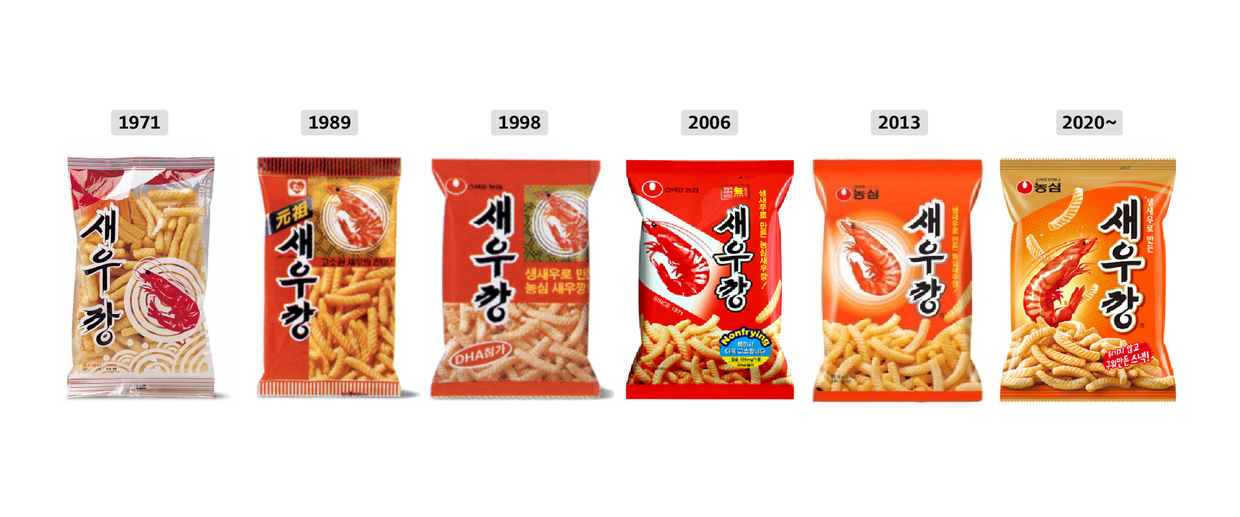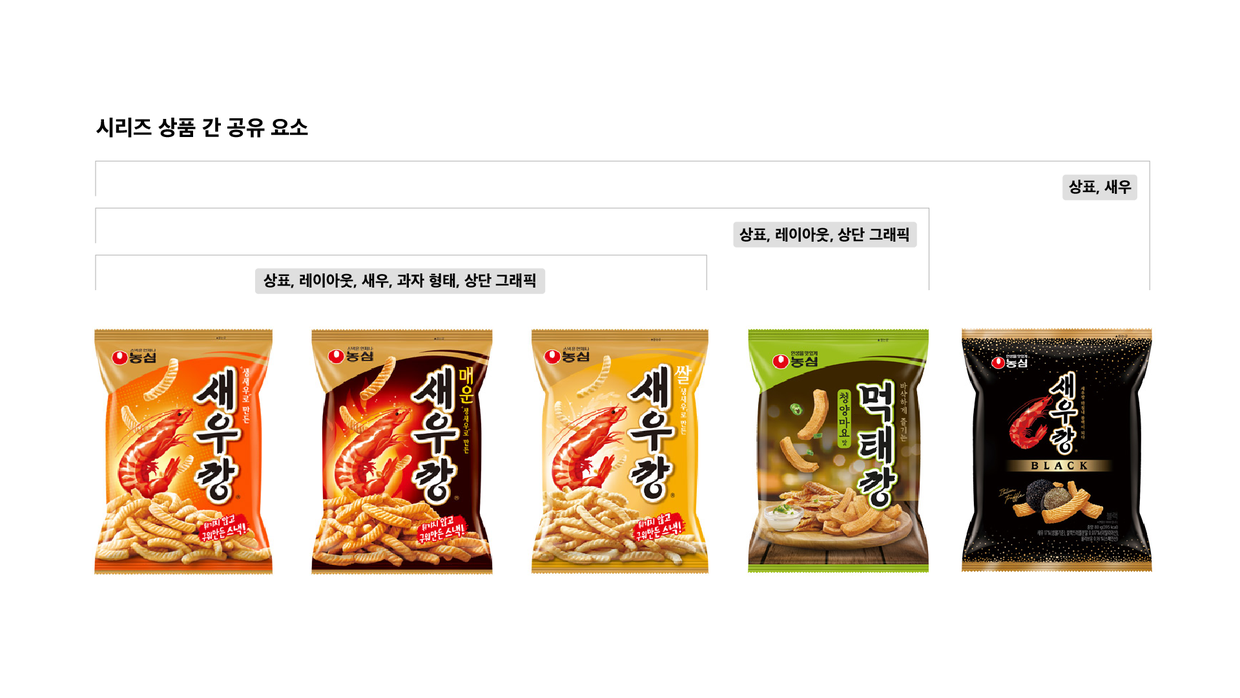
A Snack Package Observation Log
If you are a designer, this will probably resonate with you. Do you not often find yourself closely examining design in related fields wherever you go? Font designers look at shop signs on the street, UX designers analyze app structures while browsing shopping malls, and interior designers instinctively check ceiling finishes in cafés. I am particularly interested in printed materials, so I tend to study package design closely. Today, I would like to share some interesting points I observed in snack packaging.
Observation Point 1: It looks delicious at a glance
Snacks that have been on the market for a long time are already familiar to us, so they can be easily recognized at a glance by their colors or specific shapes. New products, however, require customers to read the text first in order to understand what they are. In this sense, lettering plays a crucial role in snack packaging. With this in mind, I looked through convenience store shelves and noticed products that captured their characteristics well through lettering. Let me briefly list a few examples.
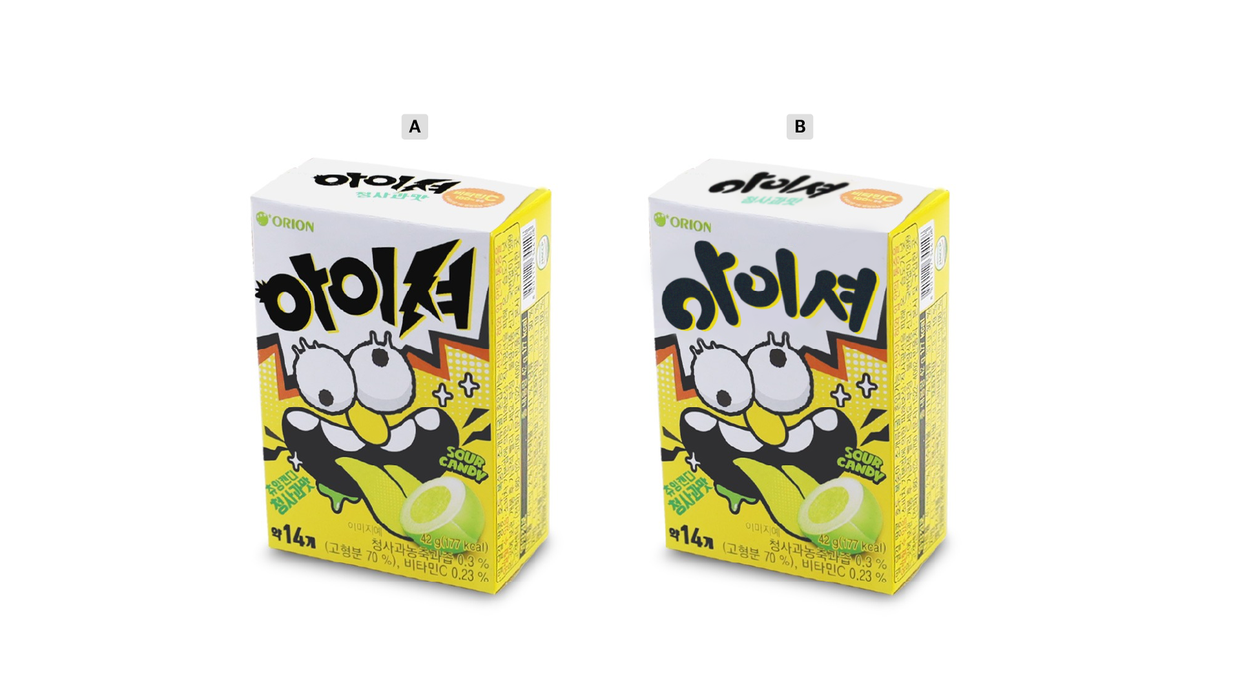
Taste
First is a case of visualizing taste. The lightning-bolt shape and the spiky, bristling form seem to express the sharp sourness of Aisher. A is the original Aisher package, and B is a package that applies the trademark style of MyGummy as a reference. What do you think? Which design, A or B, makes your mouth water more?
Form
Take a close look at the trademark of Kobuk Chip. Which one do you think is the real Kobuk Chip among A, B, and C? 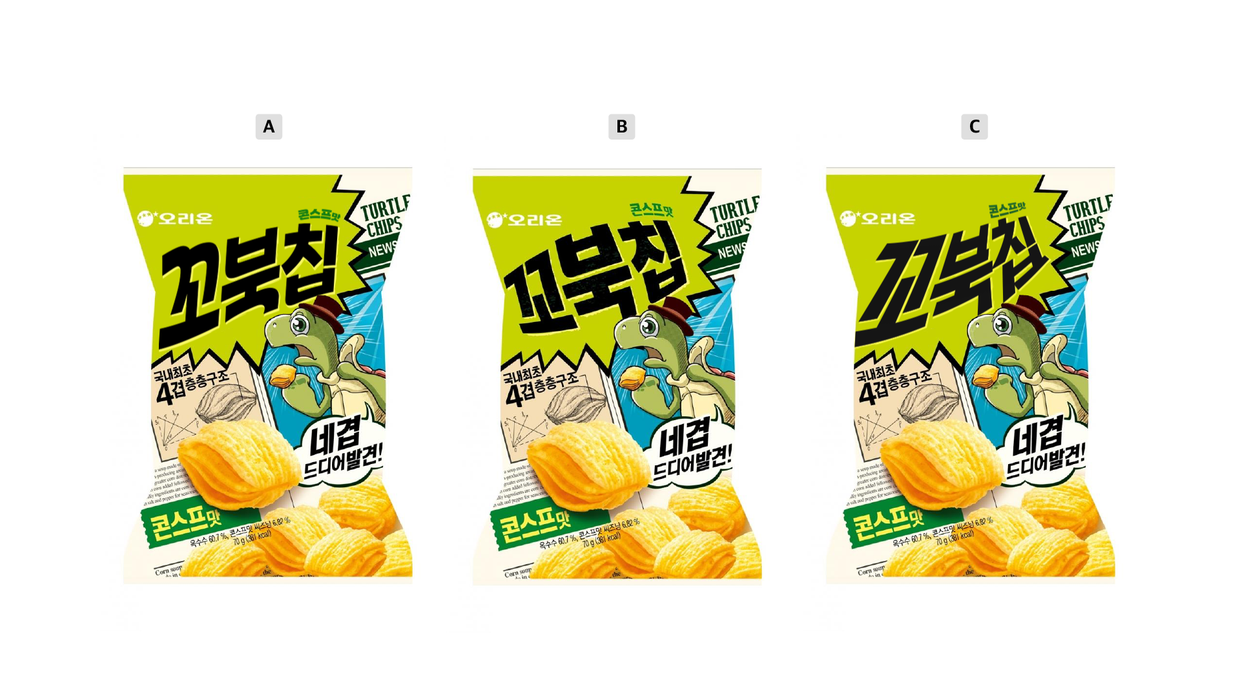
The correct answer is B. It is an answer that can be inferred from the shape of the snack itself. This is a case that reflects the product’s physical characteristics by applying the thick, puffed shape of the chip to the trademark. Kobuk Chip is said to be shaped after a turtle’s shell. Combined with the turtle-shell-shaped snack, the turtle character, and lettering that incorporates these features, the product’s characteristics are well expressed.
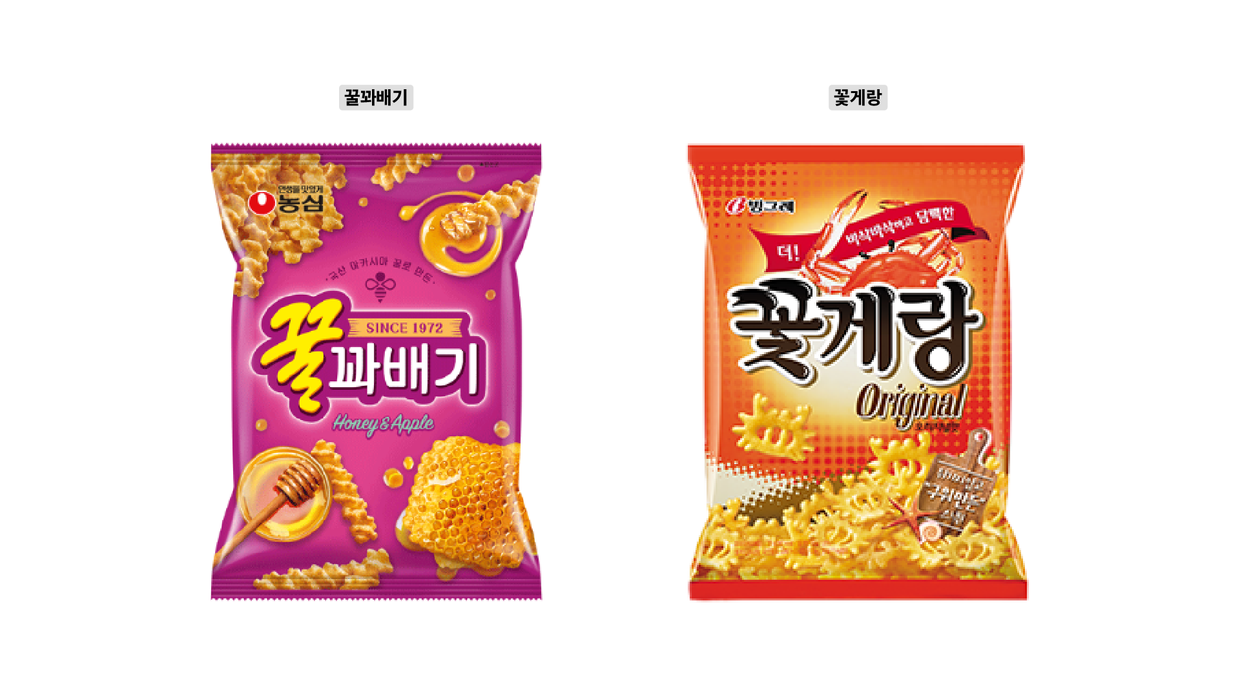
Ingredient
Lastly, this is a case where the main ingredient of the snack is expressed through the trademark lettering. In Honey Twists, the flowing property of honey is reflected in the final consonant ‘ㄹ’ of the character ‘꿀.’ In addition to the trademark, honey expressions are placed on all corners of the package except the upper left. Even the cute bee icon above the trademark strongly emphasizes honey, the product’s key characteristic.
Let us look at one more example. Kkotgetang also applies elements of its main ingredient, blue crab, to its trademark. The initial stroke of the consonant ‘ㄲ’ in ‘꽃’ resembles a claw, while the starting and ending strokes of the final consonant ‘ㅊ’ appear to form the eyes of a crab. The glossy effect applied across the trademark may be intended to express the smoothness of a shell.
Observation Point 2: Shaped by the passage of time
We have looked at packages from the perspectives of taste, form, and ingredient. It became clear that many brands actively use lettering to better convey product characteristics. Let me now move on to the second interesting point. As times change, products in the confectionery market also shift their positioning, and I examined how these changes are reflected in trademarks and fonts.
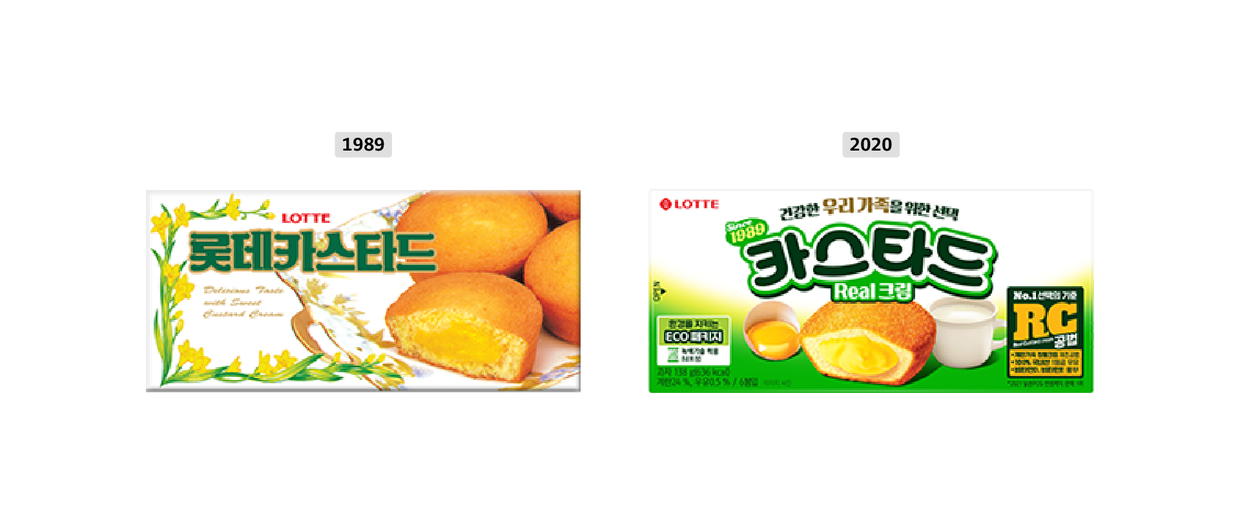
Looking at the Castard package at the time of its release in 1989, you can see decorative trademarks along with ornate plates and floral ornaments. The elaborate serifs in the lettering and the small script-style English font below reflect a premium positioning.
In the redesigned Castard from 2020, the overall impression feels much more friendly. The most noticeable change is the rounded trademark. In line with this, the sub-copy font also appears to adopt a casual style. Whereas the earlier Castard conveyed the image of a high-end dessert enjoyed with tea or coffee, do you sense that today’s Castard has shifted to the position of a familiar snack eaten with milk?
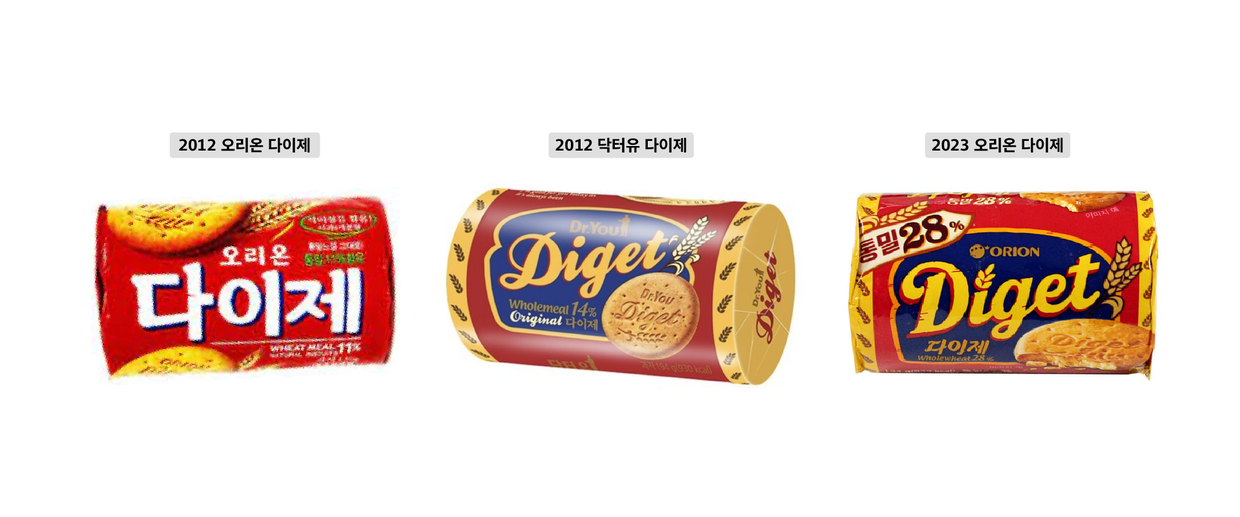
Next, I observed the package design changes when the original Orion Digestive was rebranded as Dr. You Digestive in 2012. The most noticeable change is the way the product name is written. As it shifted from a Korean-centered, familiar notation to an English-centered design, it gained a more refined and exotic feel. The lettering changed from straight, rigid forms to a flowing script style, seemingly to move away from its former rough image. The depiction of wheat also changed from realistic photography to illustration, making it feel more casual.
Looking at the current Digestive, there are no major changes from Dr. You Digestive, but an additional label in the upper left emphasizes whole wheat. To reflect the crisp and coarse texture of whole wheat, the trademark appears to have added texture and adopted more angular forms. Through the lettering applied to the packaging, we can read how the message each product wants to convey changes with the times.
Observation Point 3: On the way to becoming a classic
Unlike font design, where thousands of characters are created with both function and aesthetics in mind, product lettering symbolizes a message with just a few characters. I hope this observation log offers an opportunity to view the letters we often pass by without noticing from a new perspective. That concludes today’s observation log. I am preparing the next one with care, so please look forward to it. See you again.